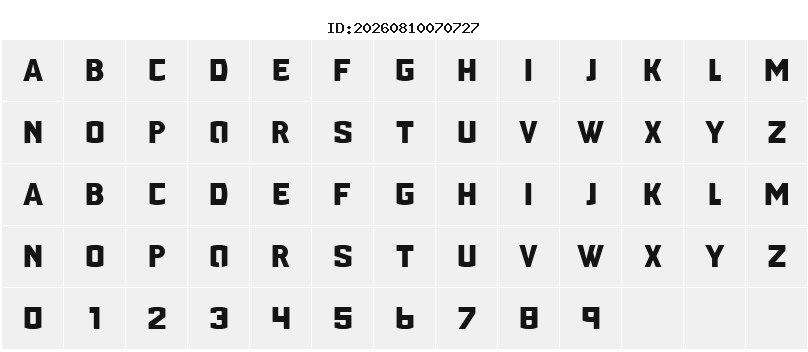
• Font Name: PORT118
• Font ID: ThomasBreure: PORT118: 2014
• Full Font Name: PORT118
• PostScript Name: PORT118
• Character Count: 82
• Designer: Thomas Breure
• Manufacturer: Thomas Breure
About PORT118.ttf
PORT118.ttf is a modern, elegant sans-serif font designed for ultimate readability and visual harmony. Perfect for branding, headlines, web design, and print materials.